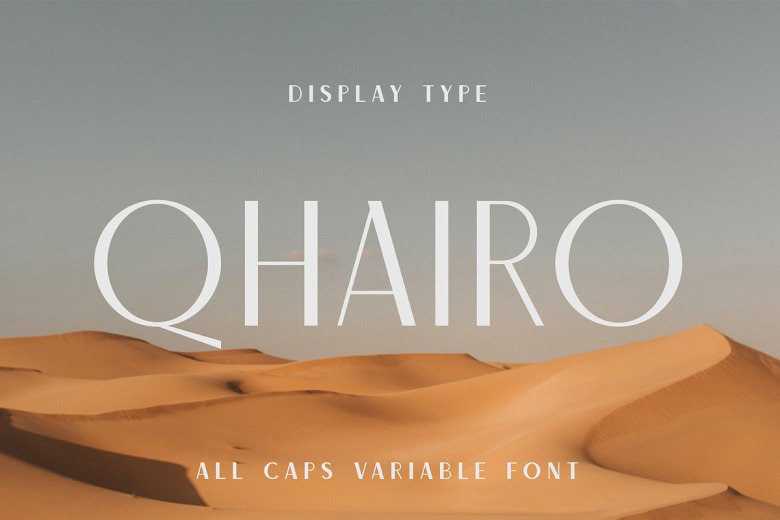
Qhairo Font
Qhairo is an all-caps variable sans serif font family. Several characters can be used as accents in titles, articles, brochures, and even web pages. It is easy to use and contains letters from thin to thick.
Qhairo Sans Serif Font